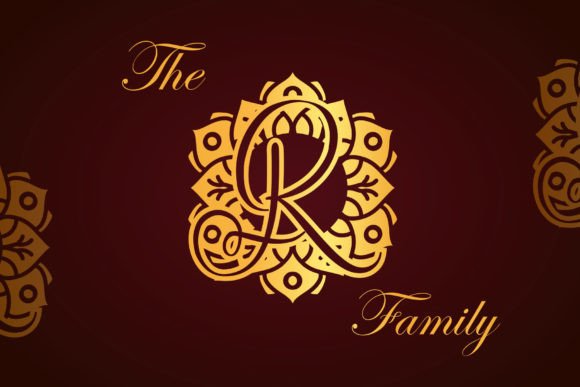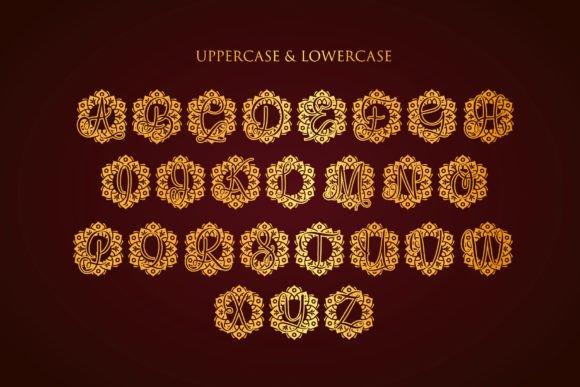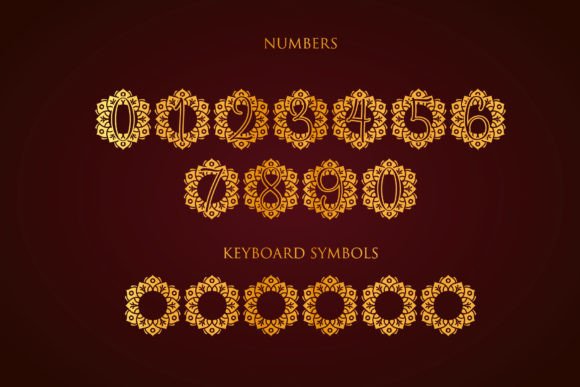
The Crown Jewel of Fonts: Unveiling the Crown Mandala Monogram Font
With its unique blend of mandala-inspired art and classic typography, this font has the potential to elevate any creation. In this article, I’ll dive into the world of Crown Mandala Monogram, exploring its features, uses, and everything in between.
- ✨ Unique and stylish design inspired by mandala art
- ✅ Classy and elegant look that’s perfect for luxury brands
- 💫 Highly versatile – works well for logos, monograms, and decorative text
- 🎨 Beautifully crafted glyphs and stylistic alternates
While Crown Mandala Monogram is an amazing font, there are a few things to keep in mind:
- 🤔 Some characters may require manual kerning for optimal spacing
- ⚠️ Limited use of lowercase letters, as the font is primarily designed for uppercase text
The Designer Inspiration Behind Crown Mandala Monogram
The Crown Mandala Monogram Font was inspired by the beauty and intricacy of mandala art. The designer, a lover of Eastern spirituality and art, sought to create a font that captured the essence of this ancient craft. By combining traditional typography with mandala-inspired illustrations, the font was born.
Q: What type of projects is Crown Mandala Monogram best suited for?
A: Crown Mandala Monogram is perfect for luxury brands, high-end packaging, and elegant designs that require a touch of sophistication.
Q: Is Crown Mandala Monogram available in different languages?
A: The font may not support all languages, but it does include a range of glyphs and stylistic alternates to help you create unique text elements.